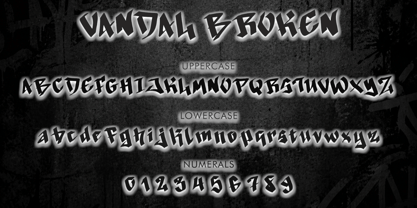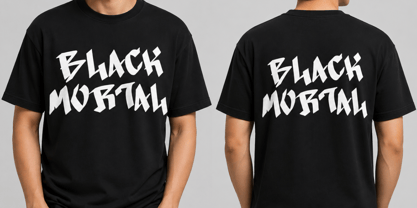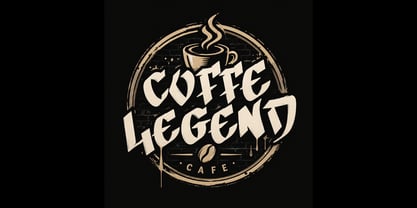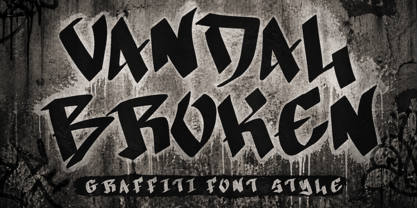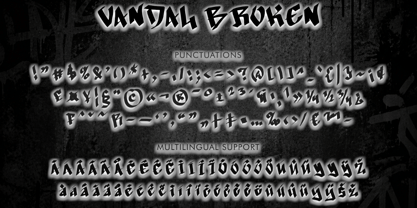
Vandal Broken
by Yoga Letter
The Vandal Broken Font Family was designed by Isroni Yoga Prasetya and published by Yoga Letter. Vandal Broken contains 1 styles. More about this family
"Vandal Broken" is a unique and attractive graffiti font. It features uppercase and lowercase letters, numbers, punctuation, and multilingual support. It's perfect for city wall graffiti, tattoos, banners, posters, stickers, branding, business branding, logos, social media, summer, holidays, t-shirts, jeans, screen printing, murals, Christmas, patriotic, and more.
Designers: Isroni Yoga Prasetya
Foundry: Yoga Letter